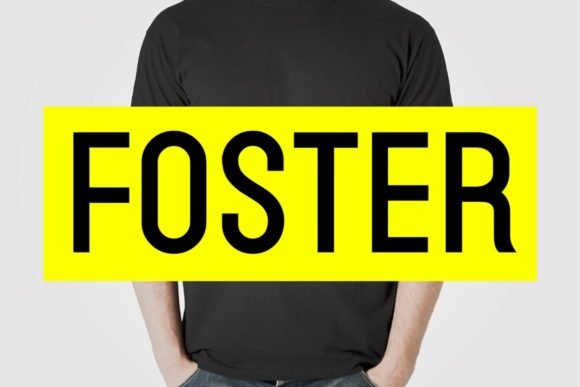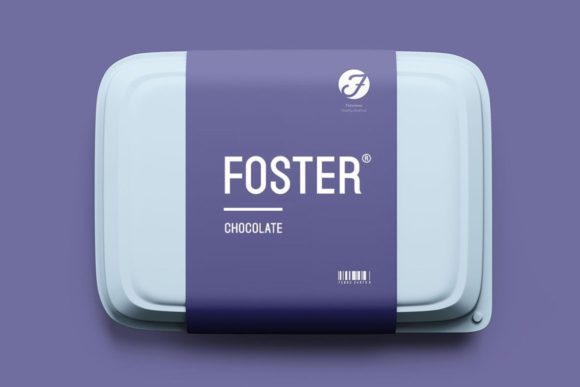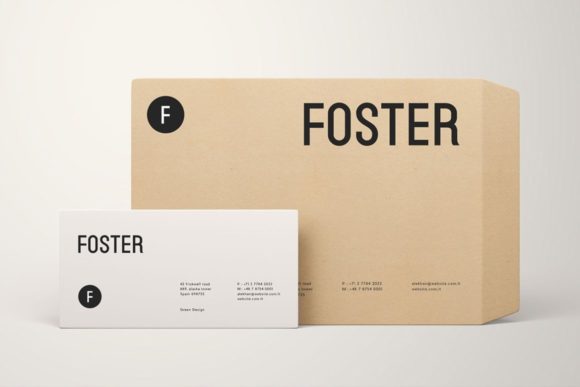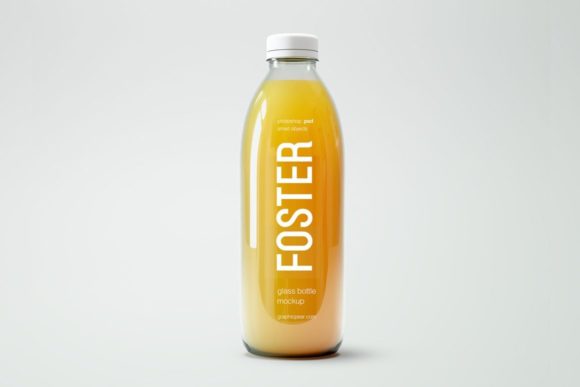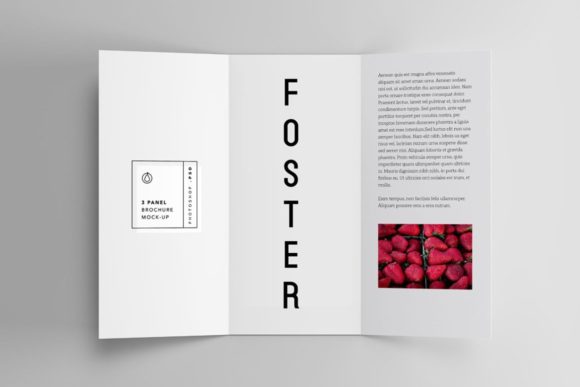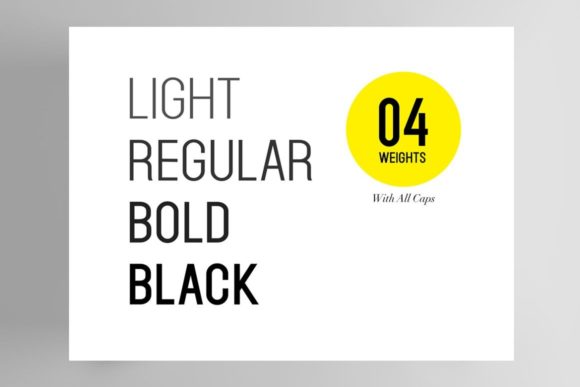
Unlock Your Creativity with the Perfect Display Font
Have you ever stared at a blank canvas, notebook, or computer screen, waiting for inspiration to strike? The blank space can be intimidating, but what if you had the perfect tool to spark your creativity? For designers, finding the right font can make all the difference between a good design and a great one. That’s where Foster Font comes in – a minimal and neat display font designed to elevate your projects to the next level.
Foster Font is more than just a font; it’s a versatile companion for your creative journey. Its clean design and open feel make it easy to match with a wide range of projects, from elegant invitations to modern web headers. Whether you’re a seasoned designer or just starting out, Foster Font is a valuable addition to your toolkit, guaranteed to take your designs from ordinary to extraordinary.
Foster Font Key Features
- Font Family: Foster Font is a modern sans-serif font family with 12 styles, including Light, Regular, Medium, Bold, Extra Bold, and more.
- Character Set: Supports a wide range of languages, including Latin, Greek, and Cyrillic scripts, making it suitable for international typography.
- Size and Resolution: Designed to be highly scalable, with excellent legibility at small font sizes (6-12pt) and high resolutions (300-600 DPI).
- Unique Characteristics: Foster Font features a clean, geometric design with subtle rounded corners, giving it a friendly and approachable feel.
Foster Font Review
Overall, I’d say the Foster Font has its strengths and weaknesses, but I’ll start with the positives. ✨ One thing I love is its versatility. It works well for both body text and headings, making it a great choice for publications and websites. The font’s clean and modern design also makes it perfect for digital products and apps.
✨ Another strength of Foster Font is its legibility. It’s easy to read, even at smaller font sizes, which is crucial for digital interfaces. Additionally, the font’s x-height is well-proportioned, making it suitable for a wide range of languages.
- ⚠️ While the Foster Font is generally well-designed, I find its italic styles to be somewhat inconsistent. The italic letters often feel like a “forced” version of the regular font, which can be distracting.
- ⚠️ Additionally, the font’s weight progression could be improved. The light and medium weights feel too similar, making it difficult to discern between the two.
While the Foster Font has some limitations, I think it’s a solid choice for digital projects. Its versatility, legibility, and clean design make it a great option for publications, websites, and apps. However, it may not be the best choice for projects that require more nuanced typographic control.
Getting the Most Out of Foster Font
To get the most out of Foster Font, use it for:
1. Headings and titles: Foster Font is ideal for creating eye-catching headings and titles.
2. Branding: Use Foster Font consistently throughout your branding materials for a cohesive look.
3. Creative projects: Foster Font is perfect for creative projects such as infographics, posters, and flyers.